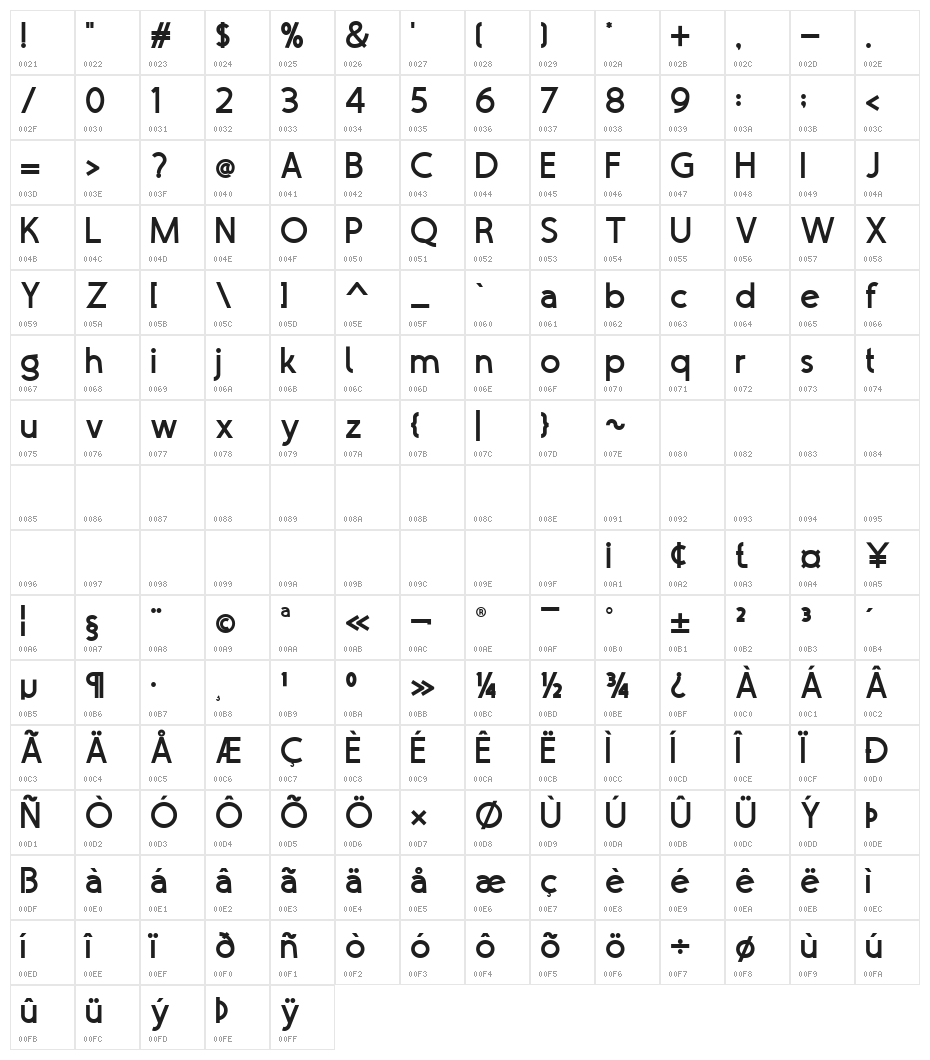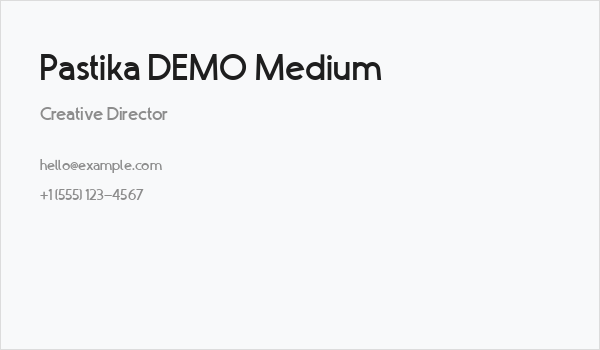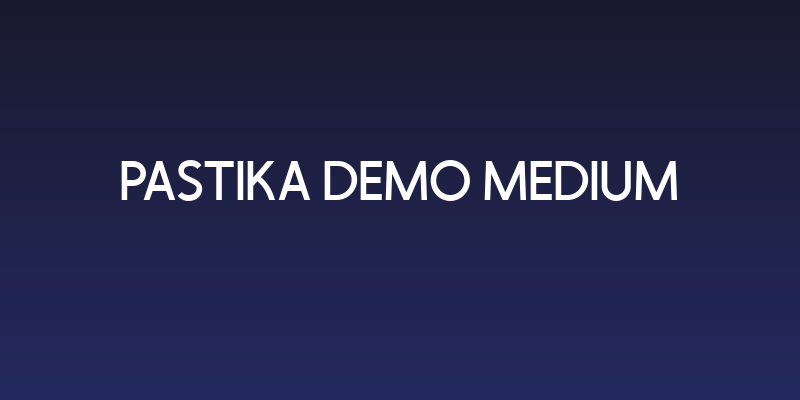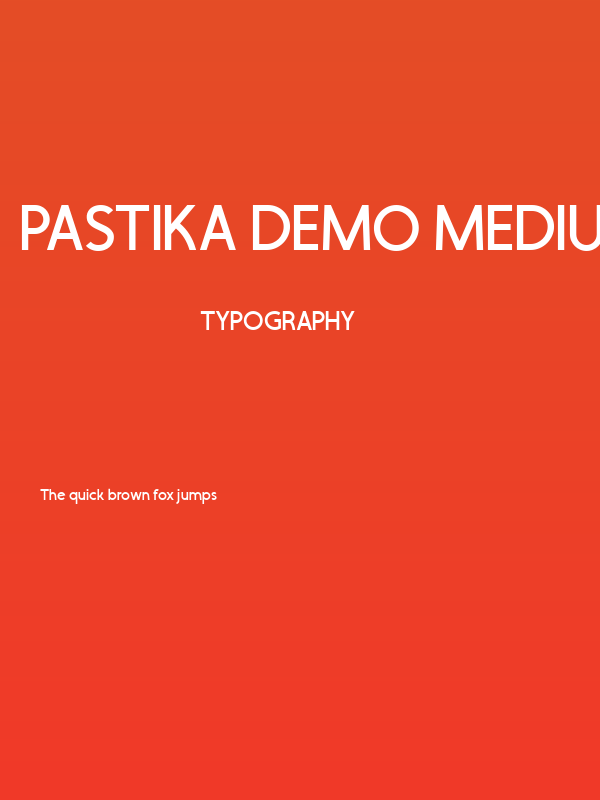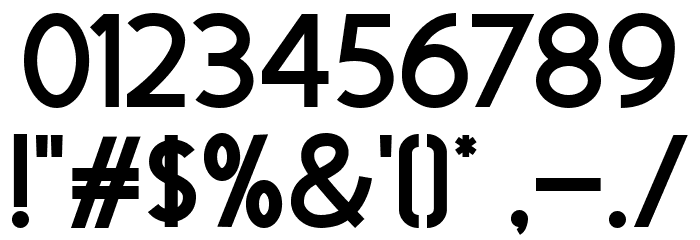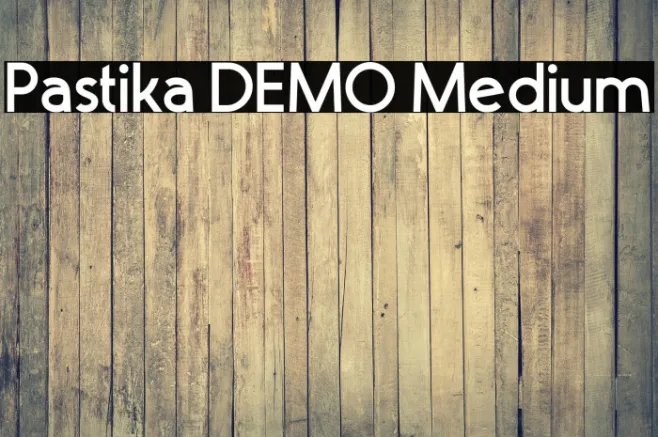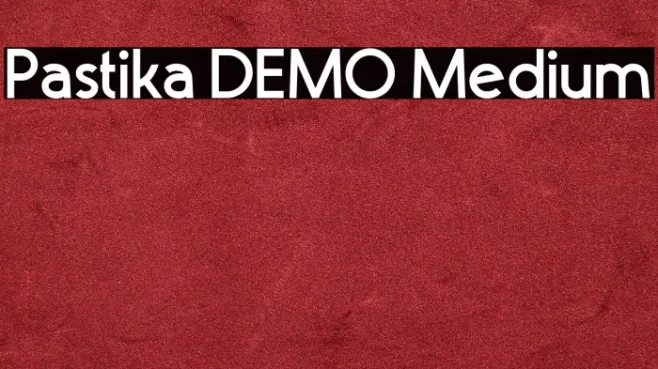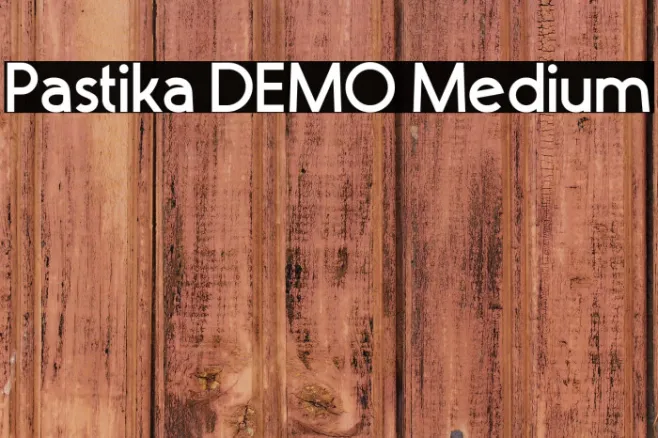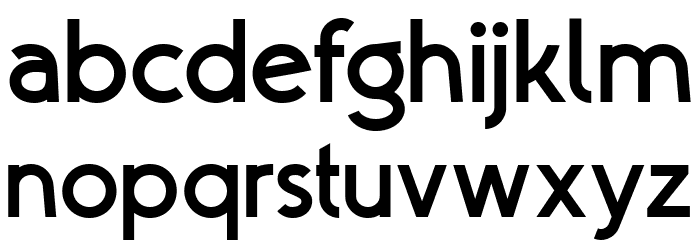
Pastika DEMO Medium Font
Pastika DEMO Medium Description
This font features a clean and modern sans-serif design, characterized by its smooth curves and balanced proportions. The uppercase letters are bold and assertive, while the lowercase letters maintain a friendly and approachable appearance. The numerals are clear and easily distinguishable, making them suitable for various applications. The special characters are well-integrated, ensuring consistency across all glyphs. This font's simplicity and elegance make it versatile for both digital and print media.
| Use Case | Headlines, Body text, Logos |
| Proposed Projects | Ideal for branding, advertising, web design, and editorial projects. |